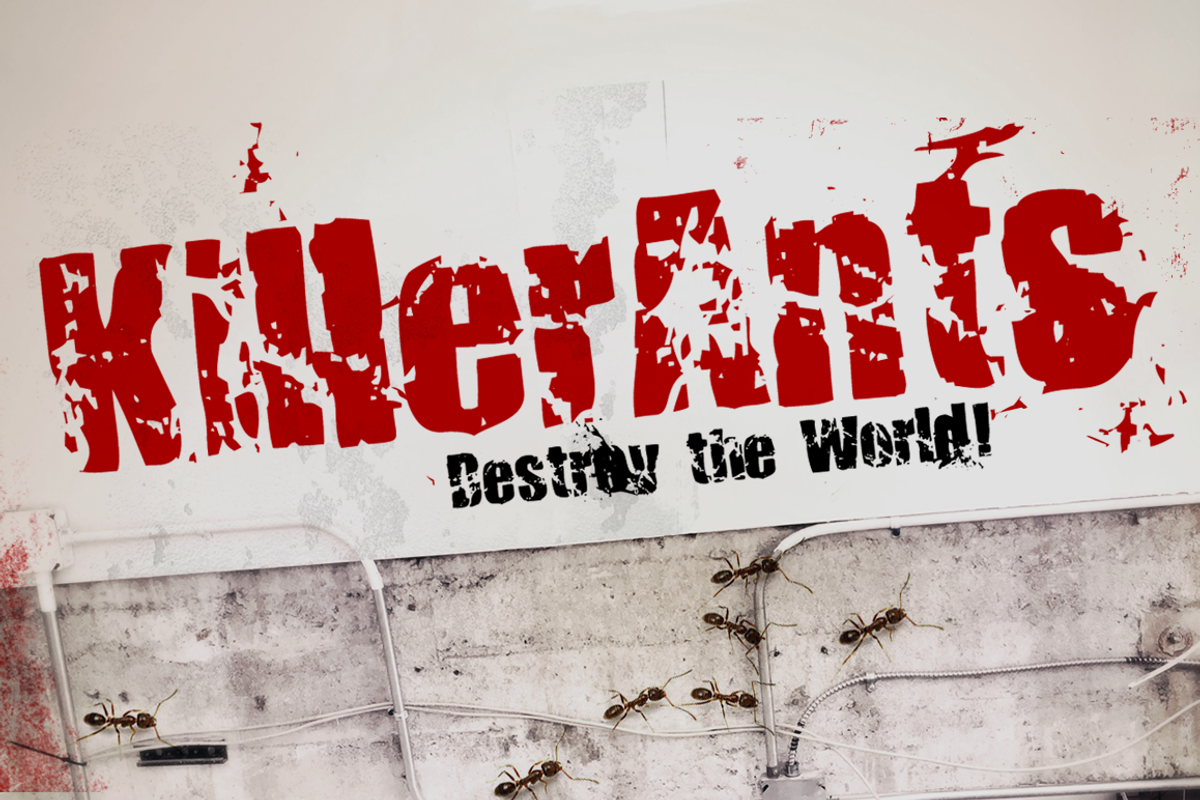
KillerAnts Font Free Download is a bold, edgy display typeface with a wild, chaotic energy that’s perfect for horror designs, grunge posters, street-style branding, and punk-inspired artwork. With jagged lines and uneven strokes, this font looks like it crawled right out of a dystopian comic book or a cult thriller movie poster.
Its aggressive, raw vibe makes it ideal for album covers, Halloween graphics, gaming thumbnails, and anything that needs to feel intense and a little unhinged. You’re welcome to test it out with a free download, but be sure to purchase a commercial license for any client work or monetized projects.
Unleash the madness with KillerAnts Font Free Download and bring an unstoppable swarm of attitude and chaos to your designs. It’s a must-have for creators who love fonts that bite back.